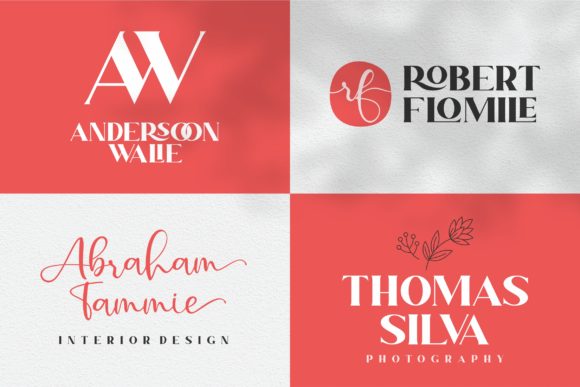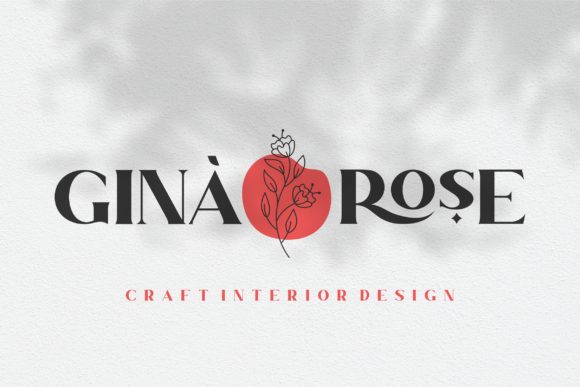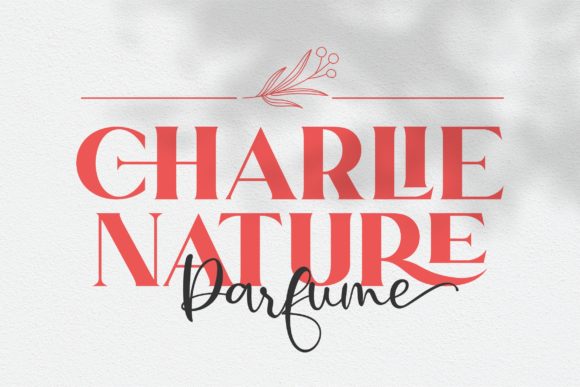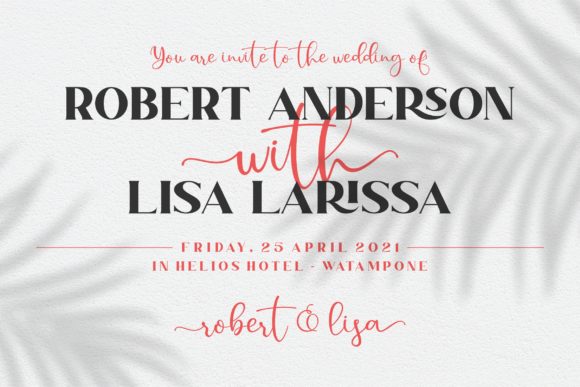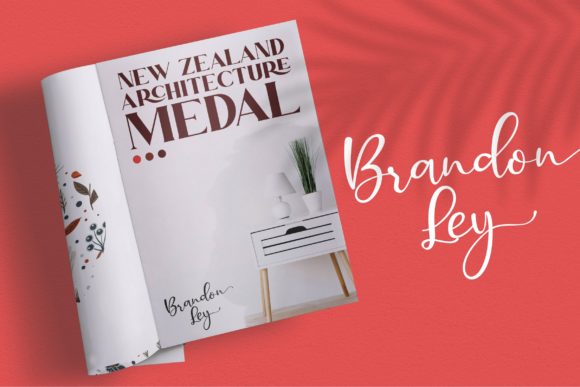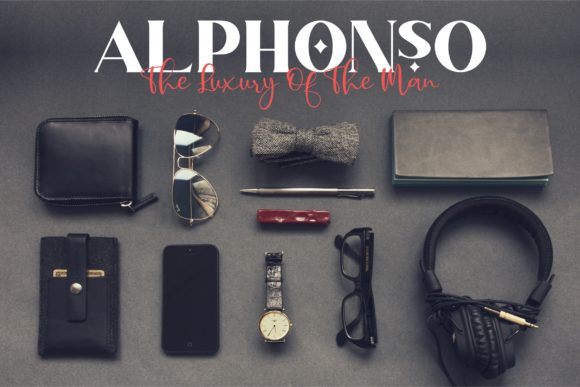
Dream Glory Font: Elevate Your Designs to New Heights
Are you tired of using the same old fonts in your designs? Look no further than the Dream Glory Font, a spectacular duo font that combines the elegance of serif and script fonts. This versatile font is perfect for designers and crafters who want to take their creative projects to the next level.
What is Dream Glory Font?
Dream Glory Font is a unique duo font that consists of two complementary fonts: a serif font and a script font. The serif font is perfect for headlines, titles, and body text, while the script font adds a touch of elegance and sophistication to any design. The combination of these two fonts creates a stunning visual effect that is sure to capture the attention of your audience.
Key Features of Dream Glory Font
- Versatility: Dream Glory Font is incredibly versatile, making it perfect for a wide range of designs, from elegant wedding invitations to bold marketing materials.
- High-Quality Design: The font is designed with high-quality craftsmanship, ensuring that it looks great in any size or format.
- Easy to Read: The serif font is easy to read, making it perfect for body text, while the script font adds a touch of elegance to headlines and titles.
- Unique and Creative: Dream Glory Font is a unique and creative font that will set your designs apart from the crowd.
How to Use Dream Glory Font
Dream Glory Font is easy to use and can be incorporated into a variety of designs. Here are a few ideas to get you started:
- Wedding Invitations: Use the script font to create beautiful wedding invitations that set the tone for a elegant and sophisticated wedding.
- Marketing Materials: Use the serif font to create bold and eye-catching marketing materials, such as brochures, flyers, and posters.
- Branding: Use Dream Glory Font to create a unique and recognizable brand identity that sets your business apart from the competition.
- Social Media Graphics: Use the font to create stunning social media graphics that grab the attention of your followers.
Benefits of Using Dream Glory Font
There are many benefits to using Dream Glory Font in your designs. Here are a few:
- Increased Creativity: Dream Glory Font is a unique and creative font that will inspire you to think outside the box and try new things.
- Professional-Looking Designs: The font is designed to create professional-looking designs that are sure to impress your clients or audience.
- Time-Saving: With Dream Glory Font, you can create stunning designs in a fraction of the time it would take with other fonts.
| Font Name | Dream Glory Font |
| Author | ergibi studio |
Dream Glory Font is a spectacular duo font that is perfect for designers and crafters who want to take their creative projects to the next level. With its versatility, high-quality design, and ease of use, this font is sure to become a favorite in your design arsenal. So why wait? Add Dream Glory Font to your favorite creative ideas and notice how it makes them come alive!